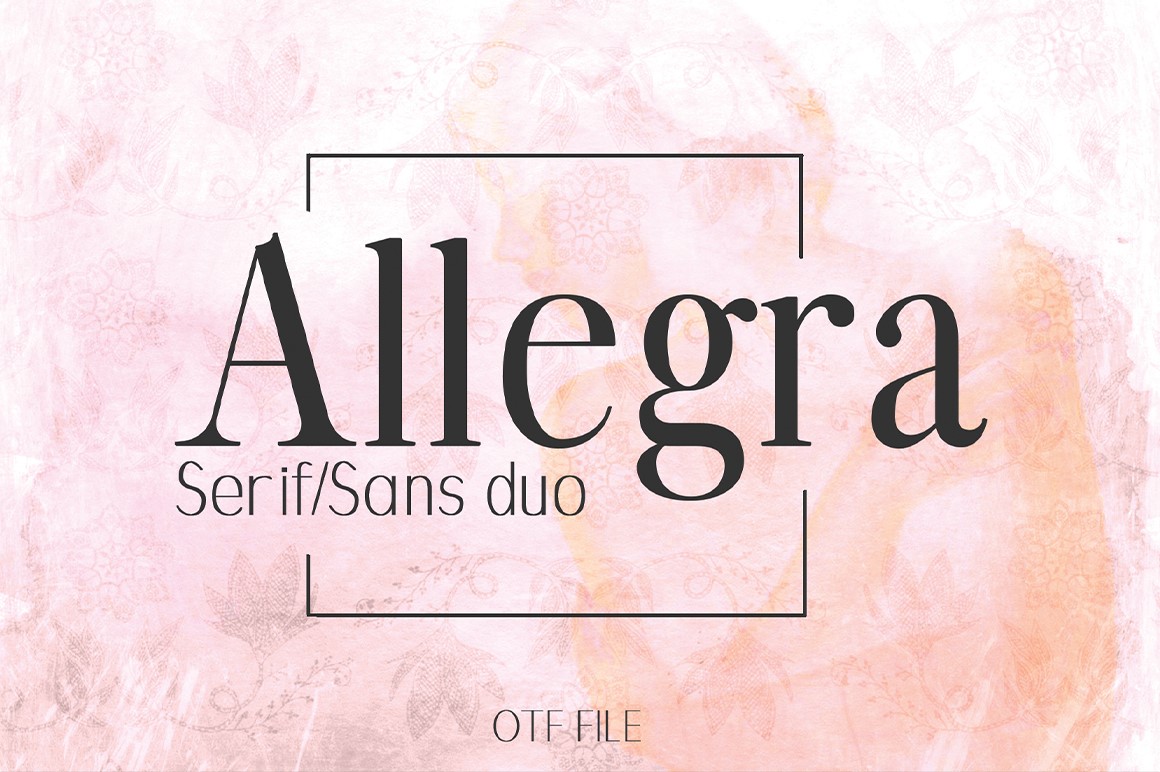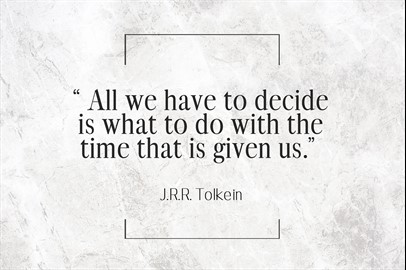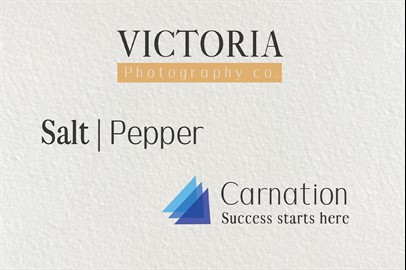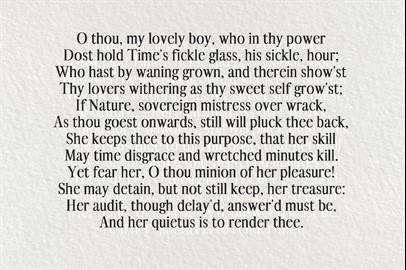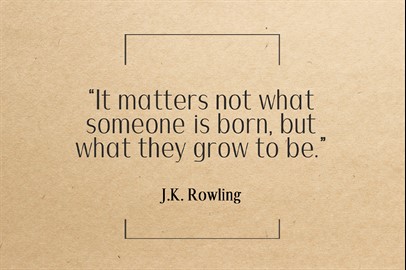
ALLEGRA Typeface: A Beautiful Font Duo
An elegant font duo.
Allegra
is a modern serif and sans serif font that perfectly compliments each other.
Allegra comes with upper and lowercase, basic characters, numbers, marks, and punctuation.